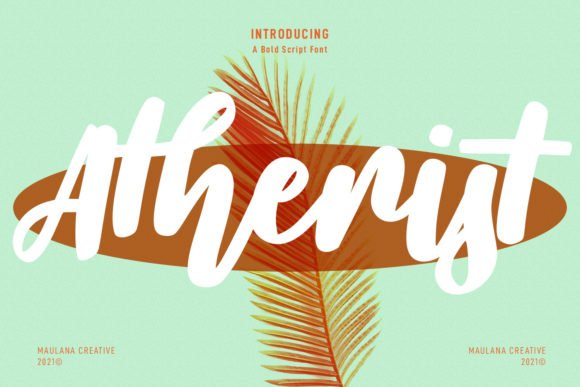
Introduction to Atherist Script Font
Atherist is a modern script font featuring slanted bold strokes, fun characters, and unique ligatures.
This font is good for logo design, Social media, Movie Titles, Books Titles, short text even long text Make stunning work with Atherist.